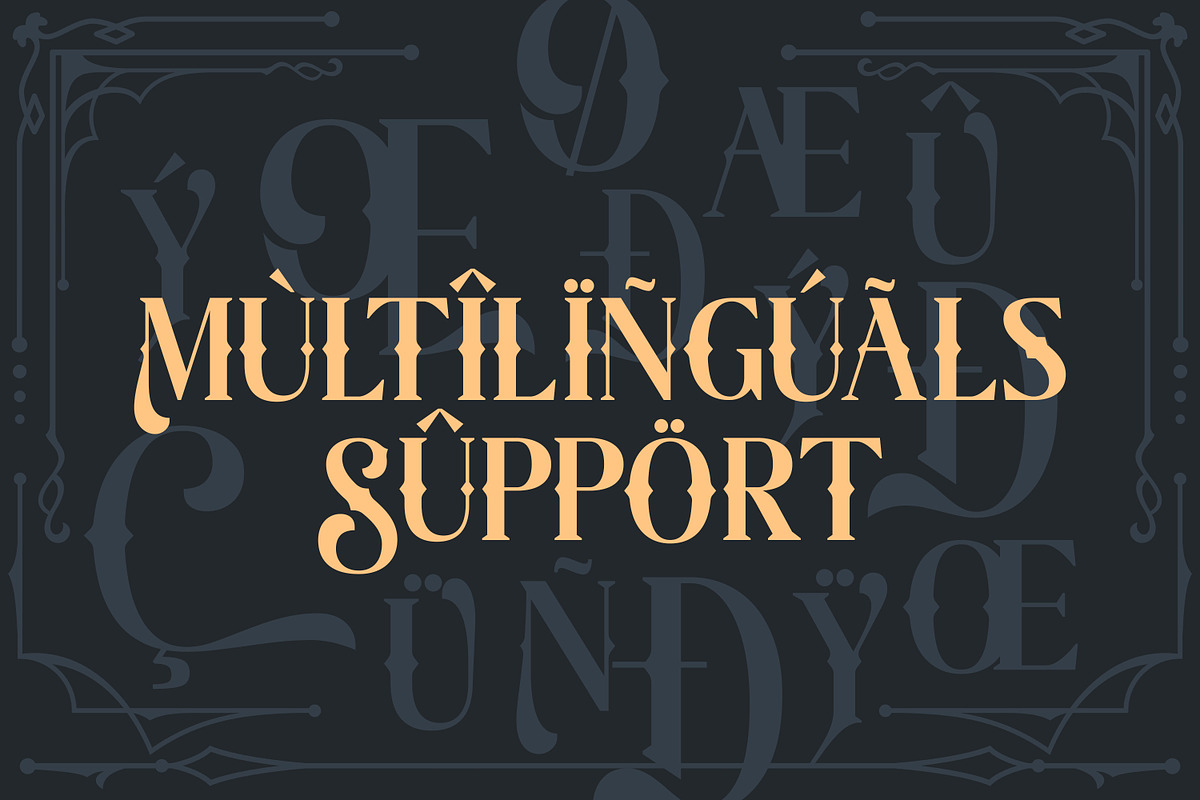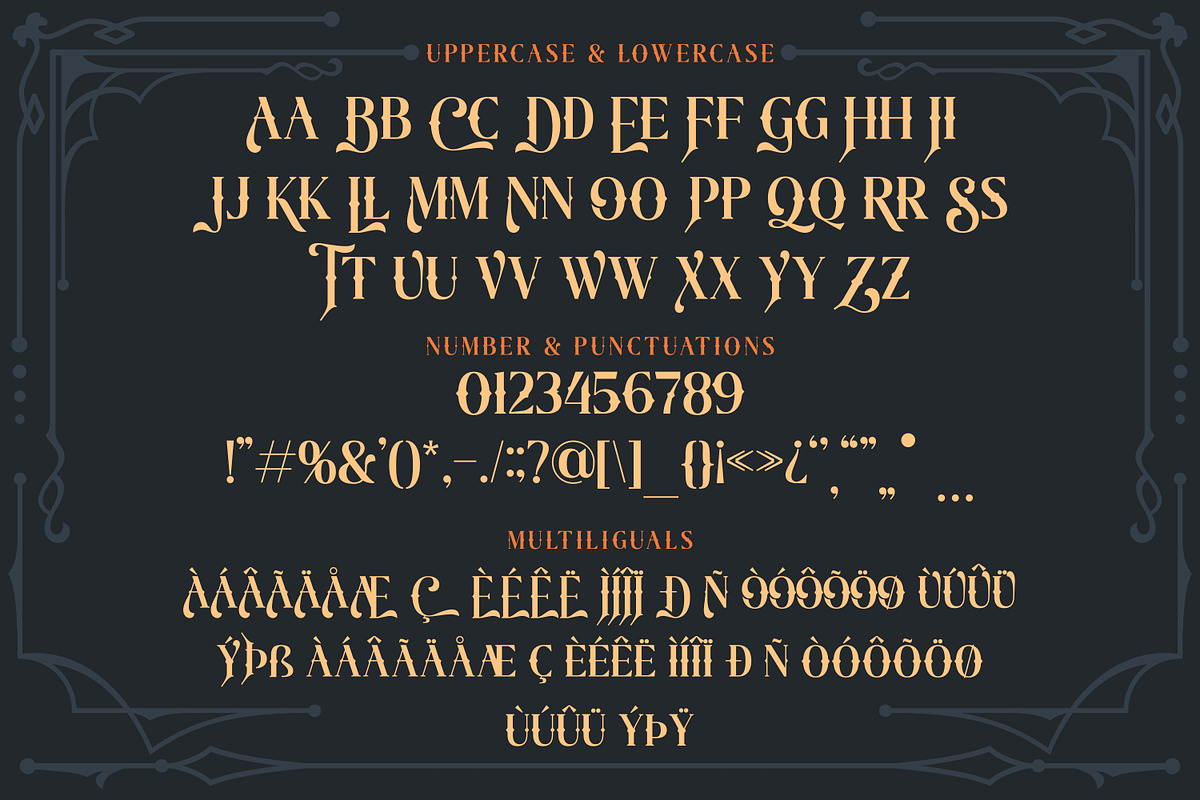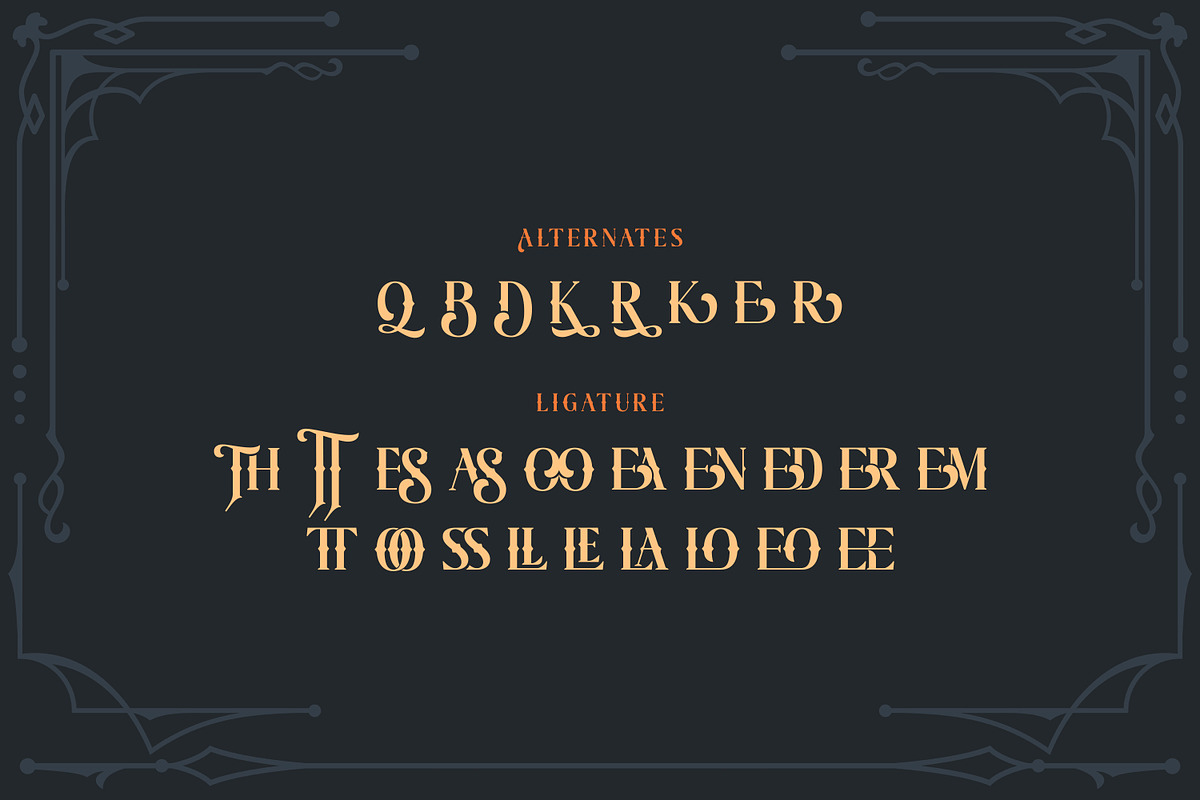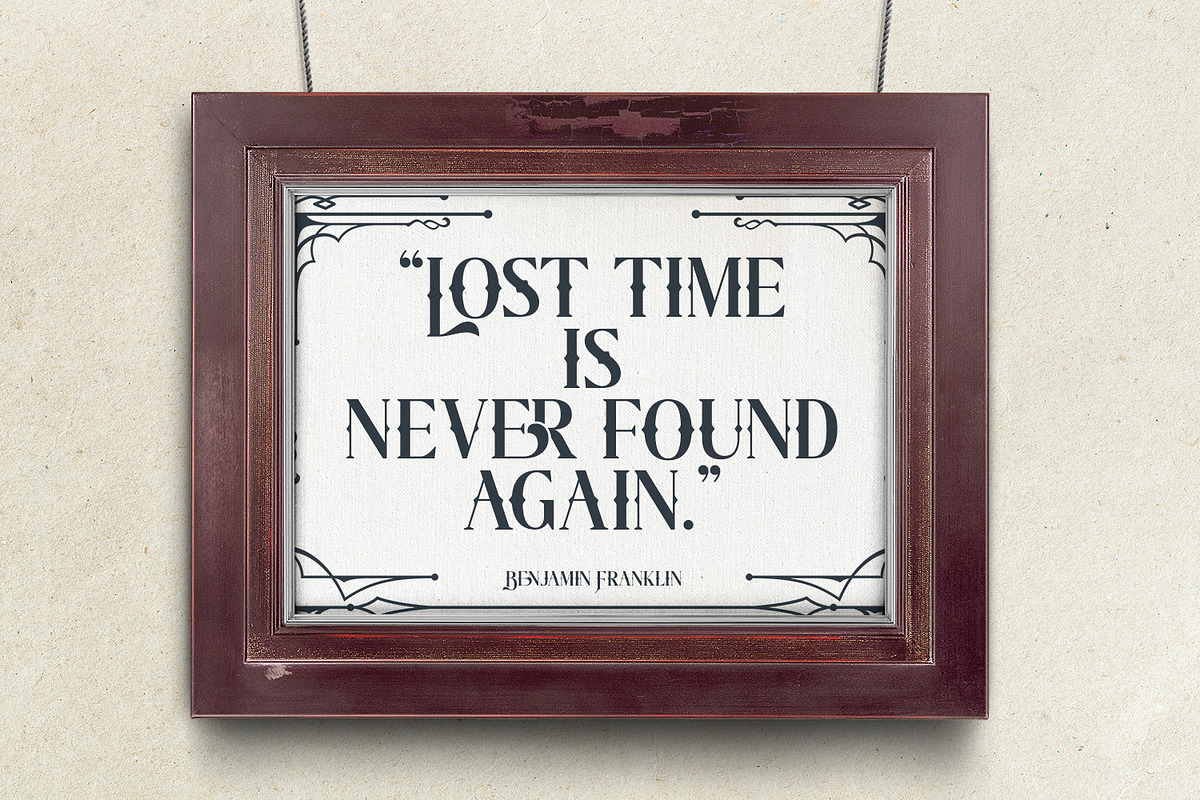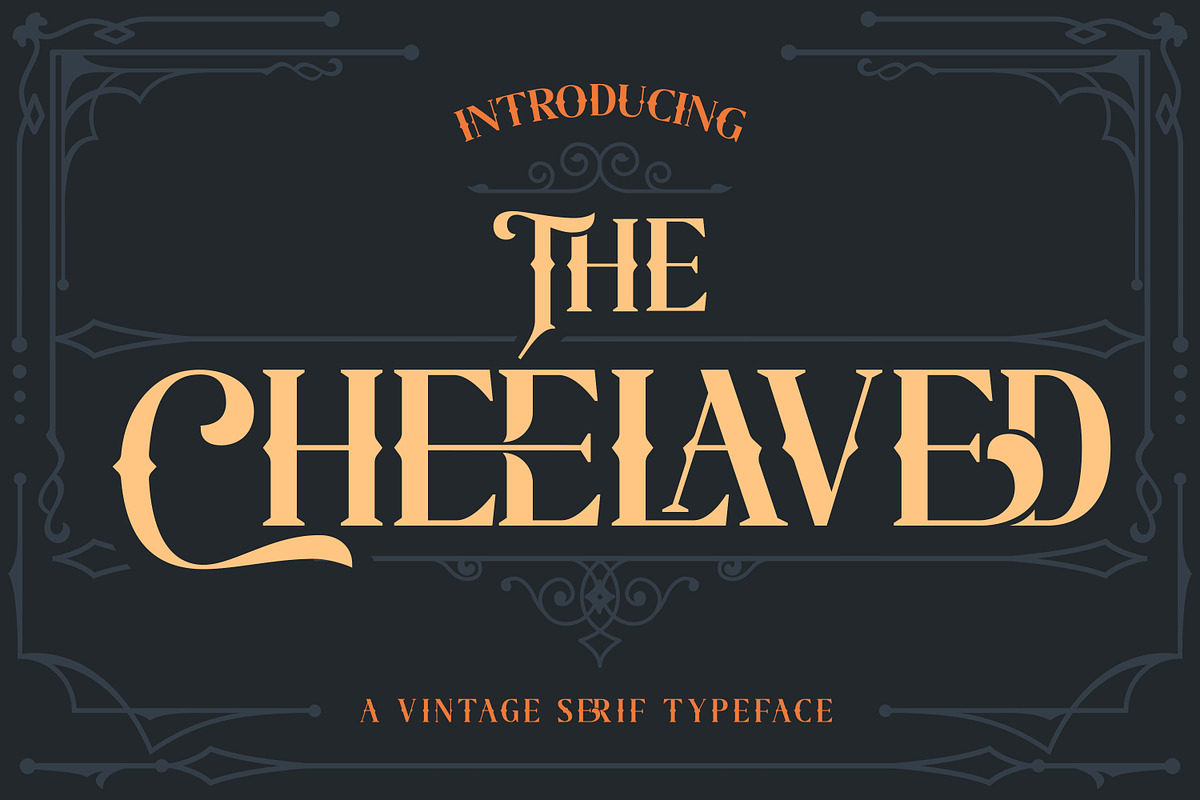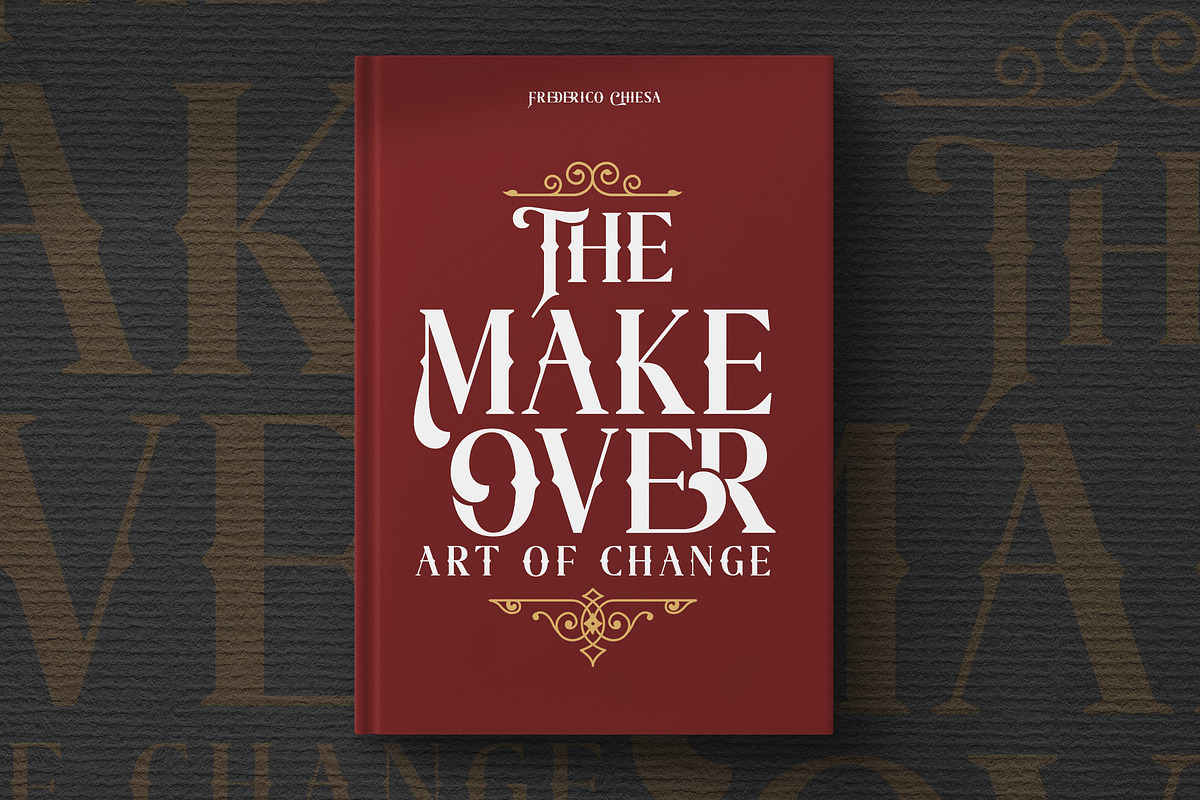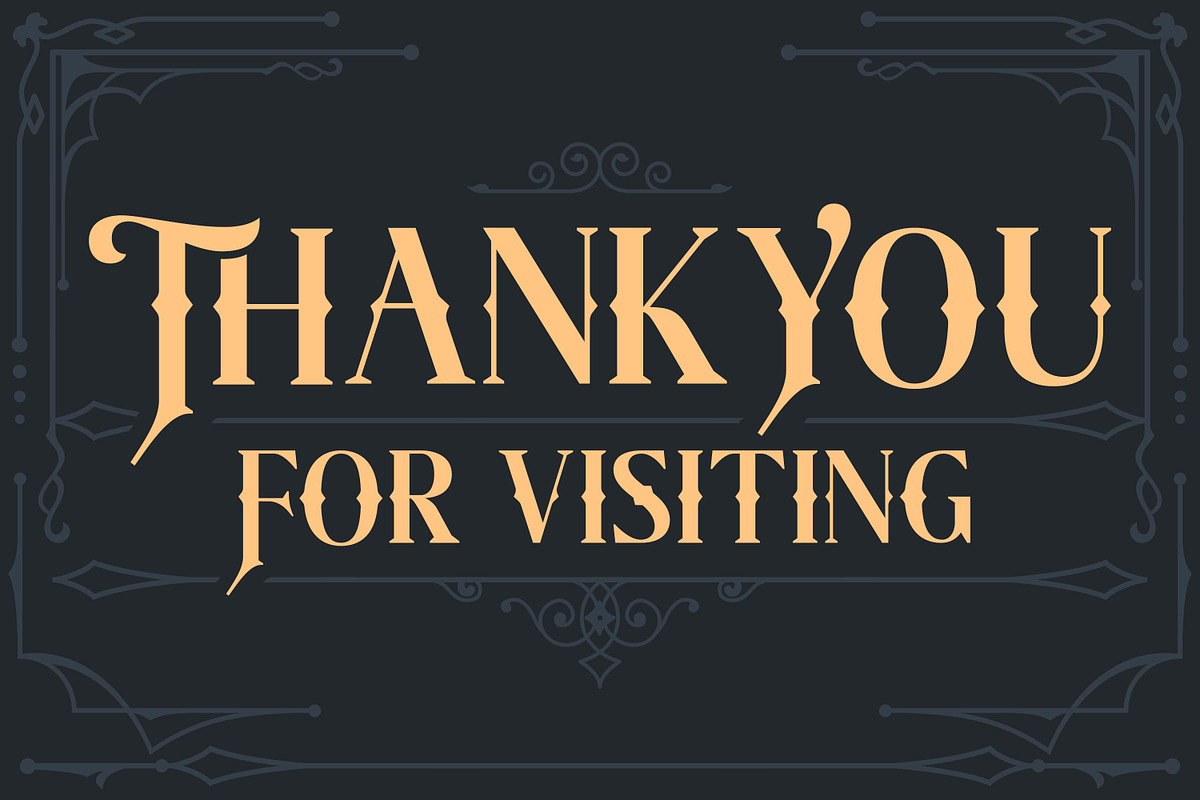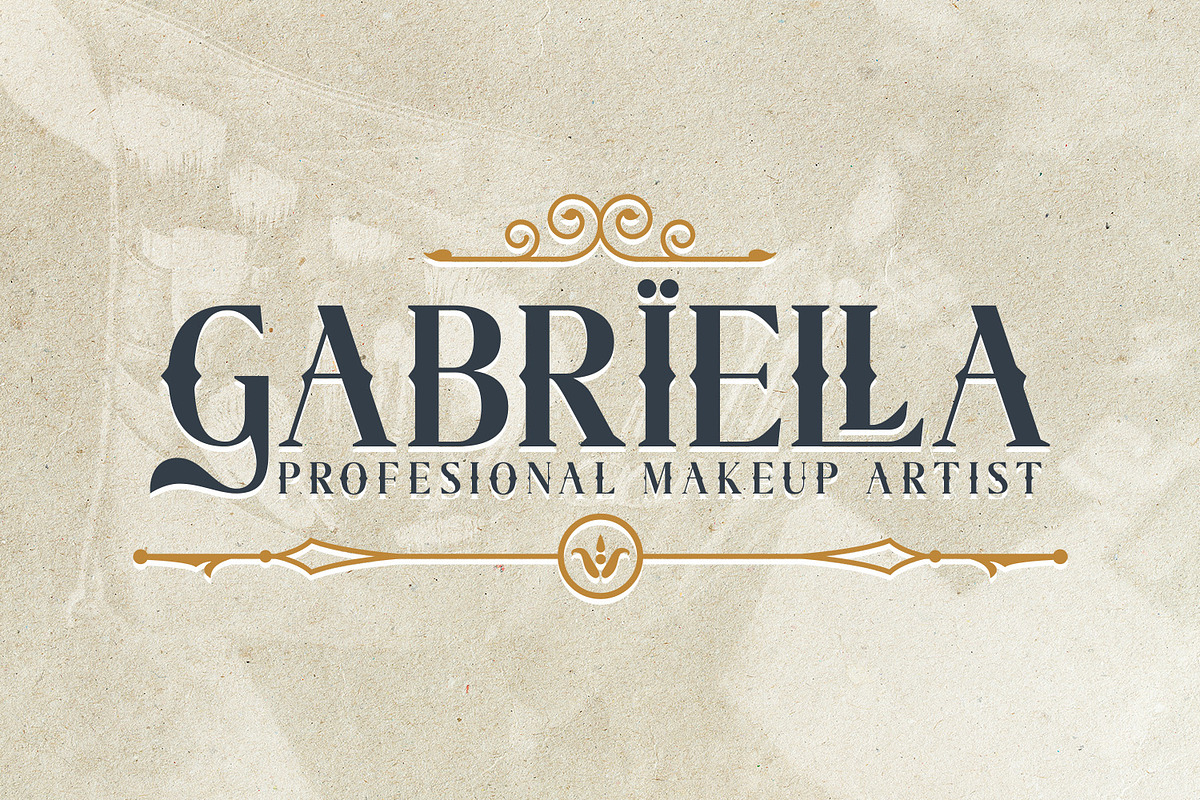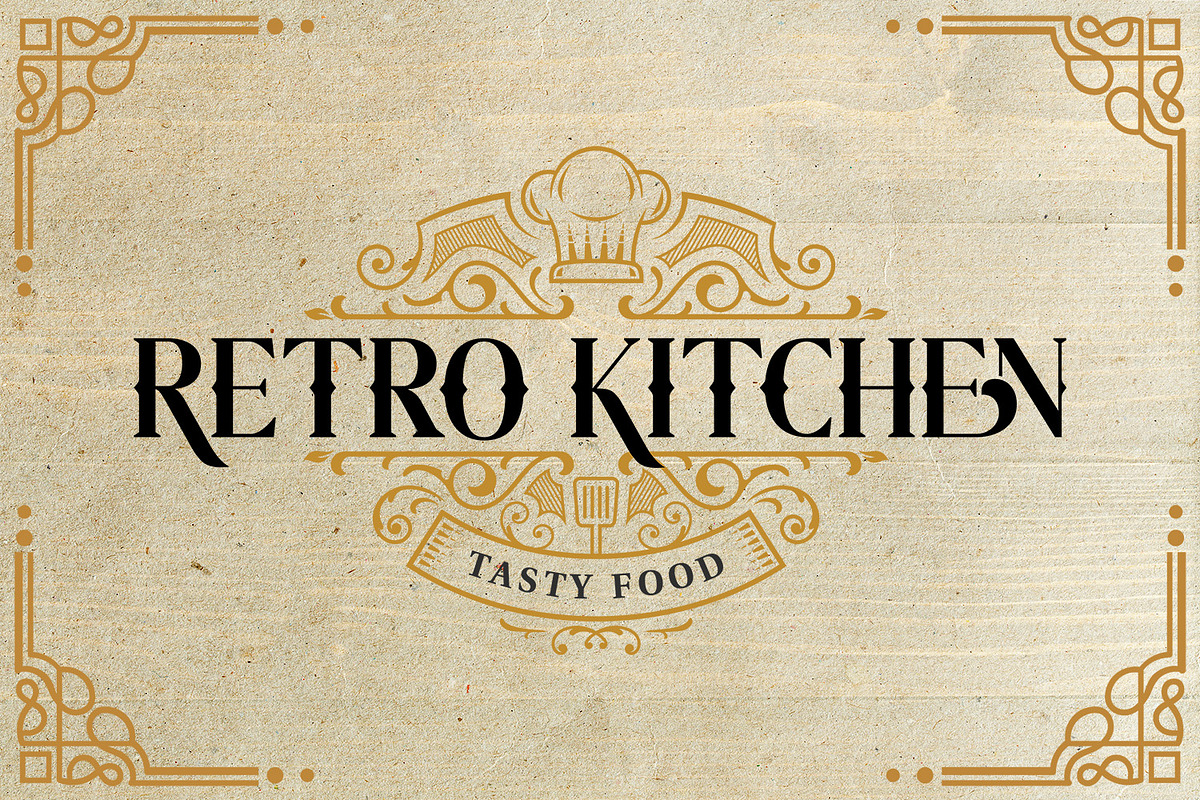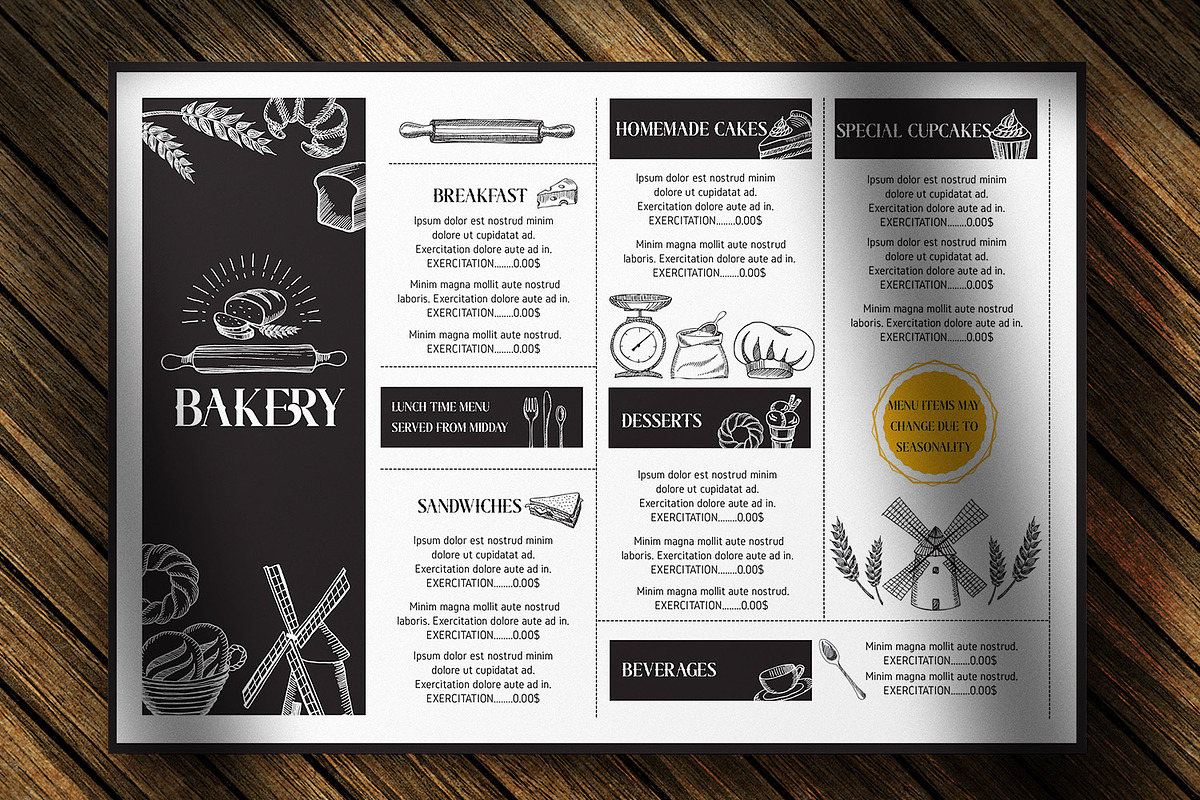
The Cheelaved - A Vintage Serif
Introducing our latest display typeface called The Cheelaved - Display Vintage Serif with 19 Ligatures and 8 Alternate Glyphs can make your logotype become more interesting. Best Vintage font with special alternative glyphs, and multilingual support. inspired by the decorative arts and architecture movement
The Cheelaved fonts is perfect for your project and allows you to create designs, headlines, posters, logos, badges, t-shirts and many more that are beautiful. It is also best used for posts, logos, posters, certificates, labels and more.
- Alternate glyphs
- Multilingual Accent